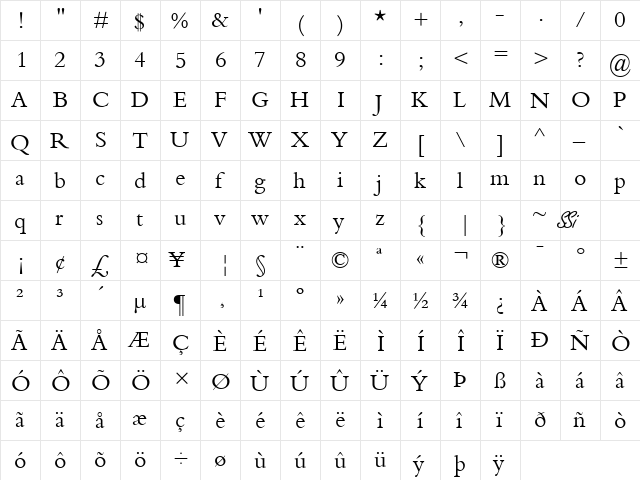
Kuriakos SSi Regular Font Preview
Kuriakos SSi Regular
Design Context for Kuriakos SSi Typeface
Kuriakos SSi is a composed and adaptable typeface that performs quietly and consistently across a wide range of design contexts.
Pro Tip: Use Kuriakos SSi in both headline and body roles to test its range before committing to a single application.